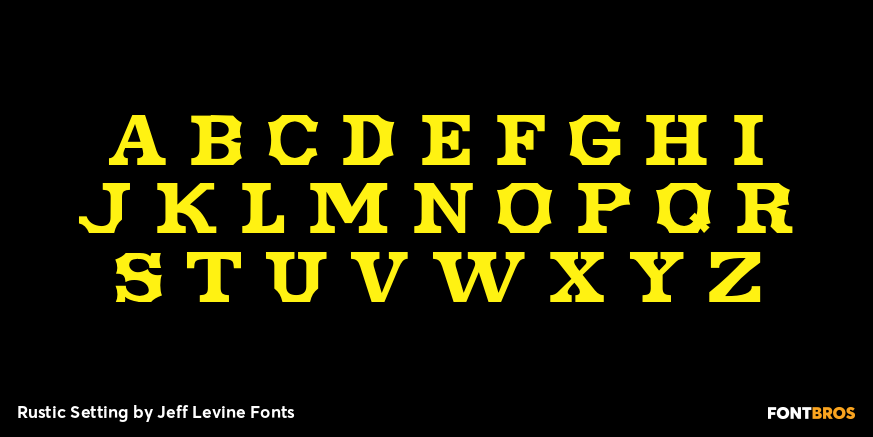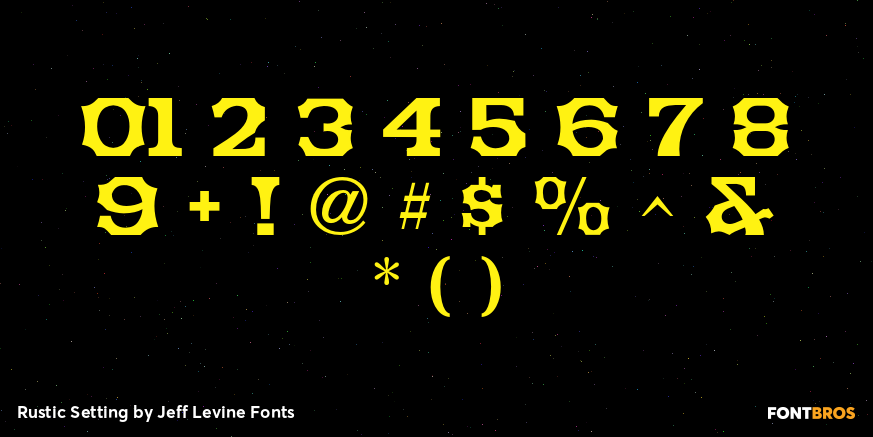
Rustic Setting
Rustic Setting JNL is the solidified version of Rustic Stencil JNL. Originally modeled from lettering on the cover a children's book, the solid version of this Western-inspired typeface is reminiscent of the classic wood types of the era.